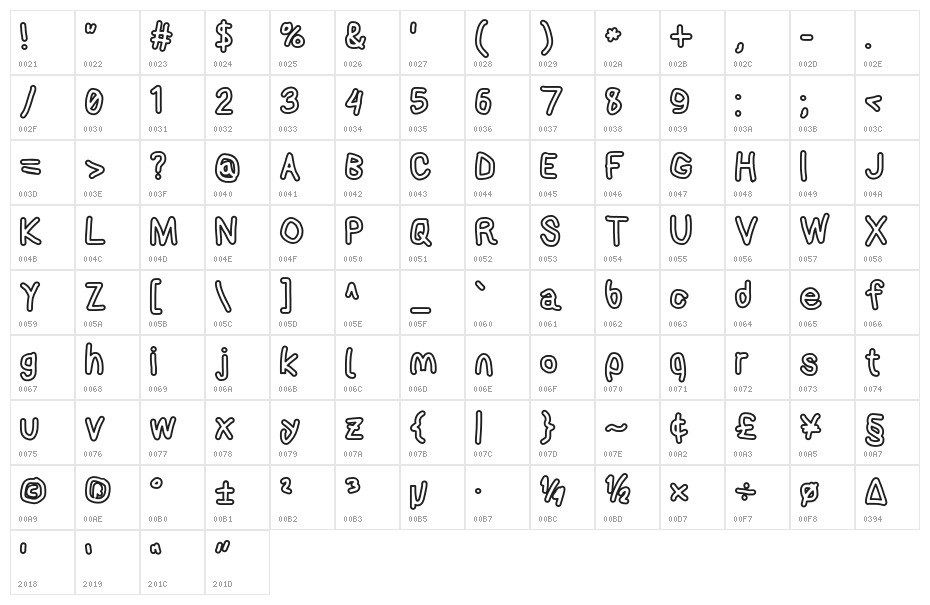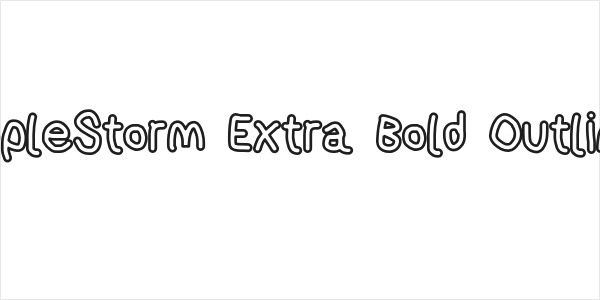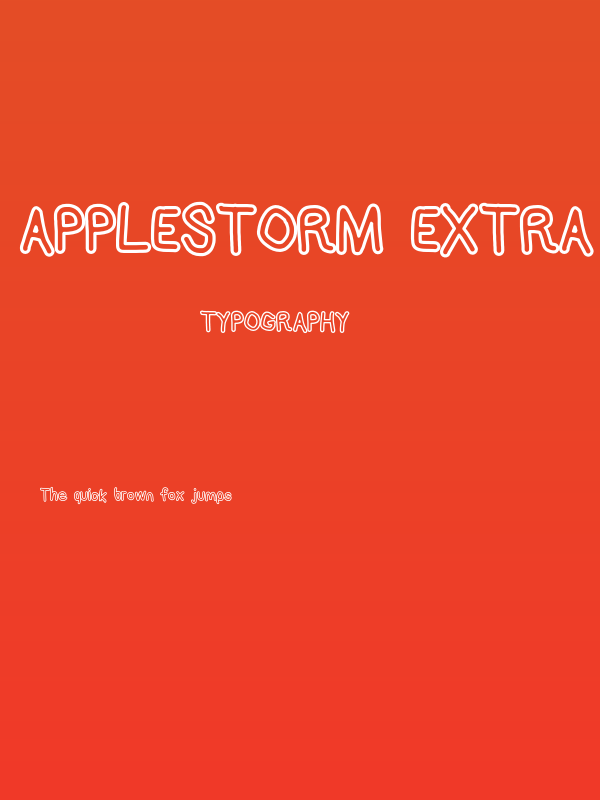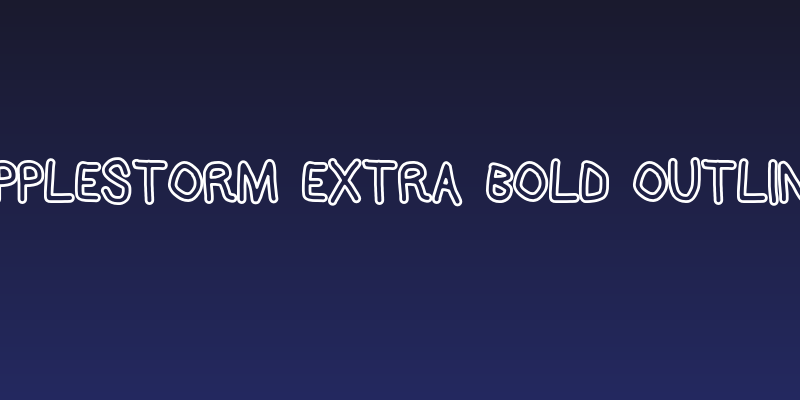
AppleStorm Extra Bold Outline Font
AppleStorm Extra Bold Outline Description
This font features a bold, playful outline style that gives it a distinctive and eye-catching appearance. The characters are rounded and have a hand-drawn feel, making them perfect for designs that require a fun and informal touch. The uppercase and lowercase letters maintain a consistent style, with the outlines providing a sense of depth and dimension. The numerals and special characters are equally bold, ensuring uniformity across all text elements. This font's unique outline design makes it stand out, ideal for creative projects that aim to capture attention.
Overall StylePlayful, Creative
Proposed ProjectsIdeal for children's books, playful branding, posters, and creative social media graphics.